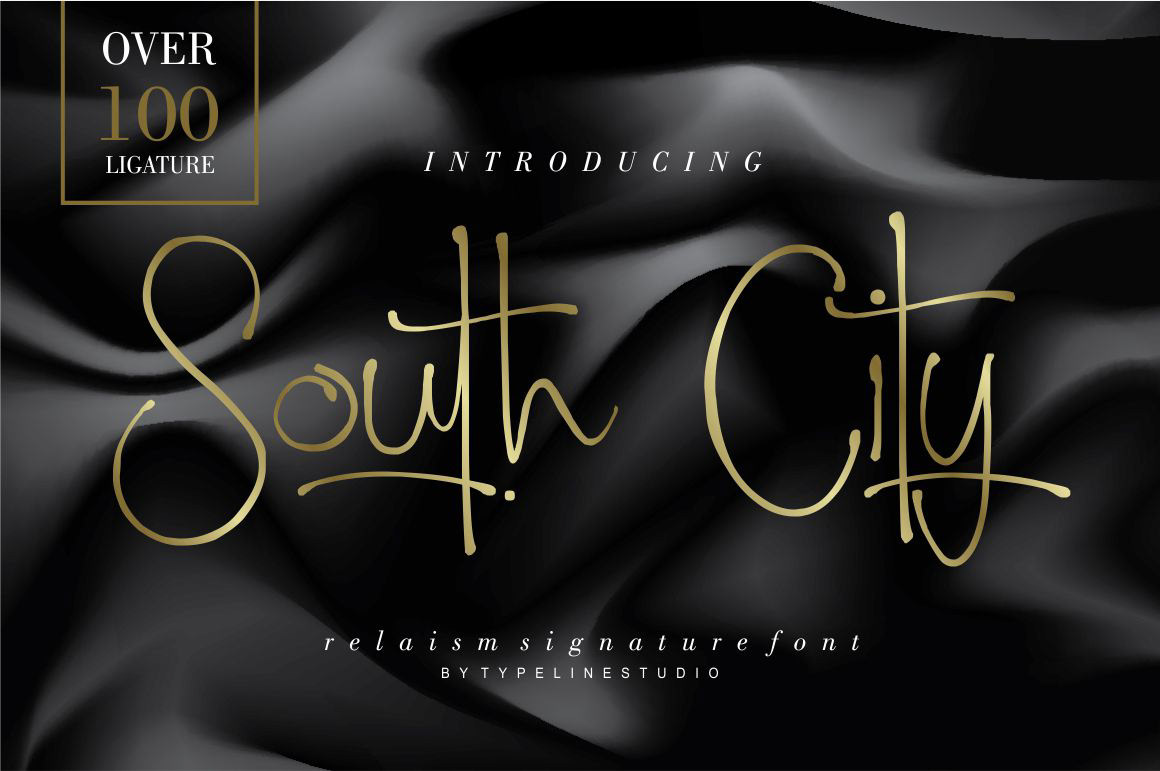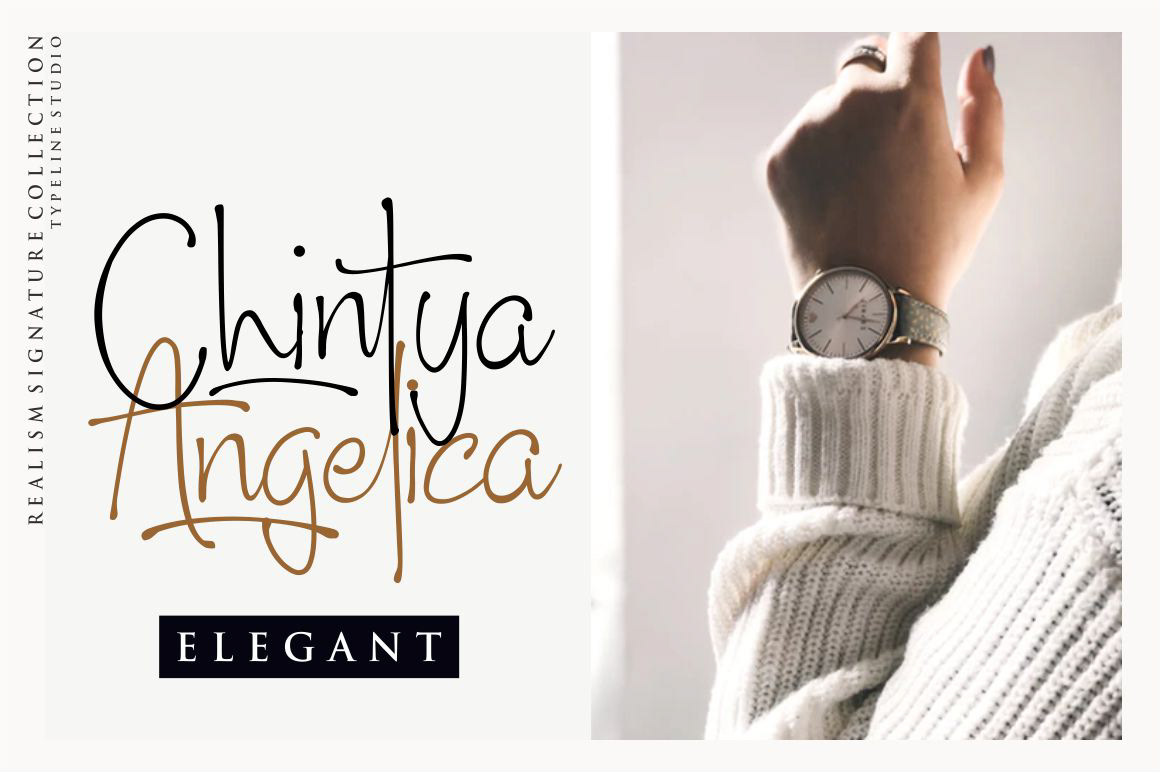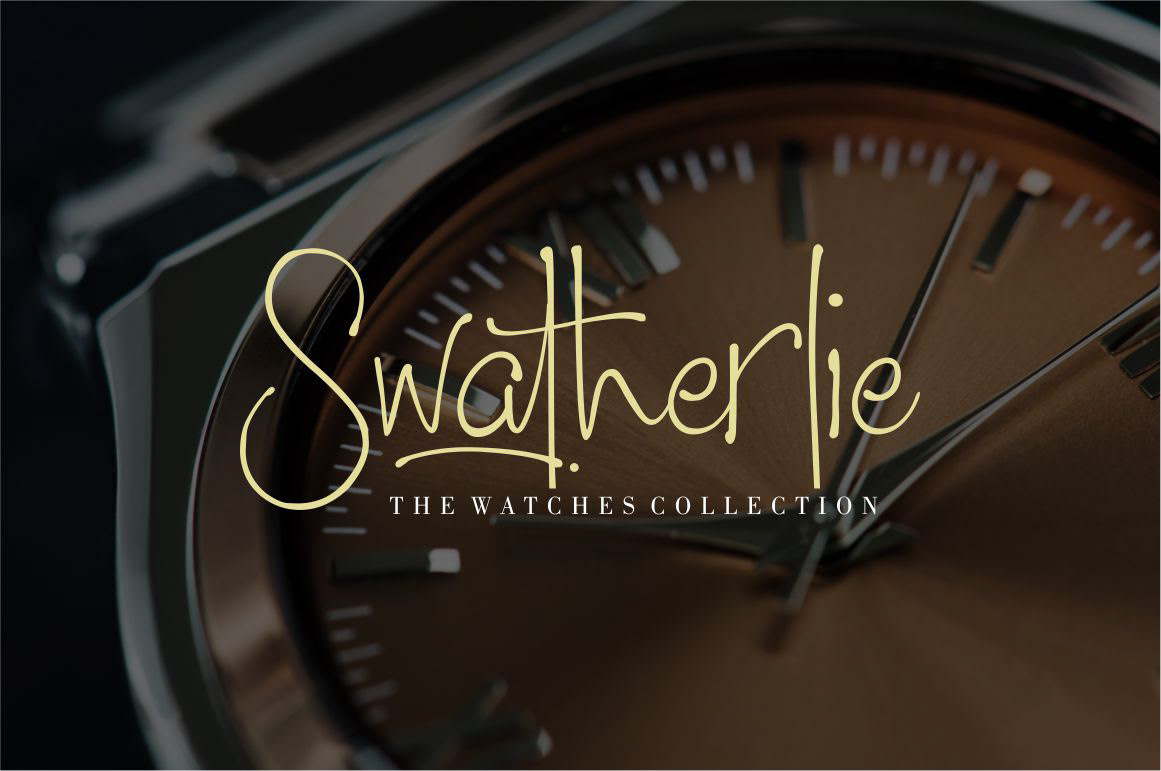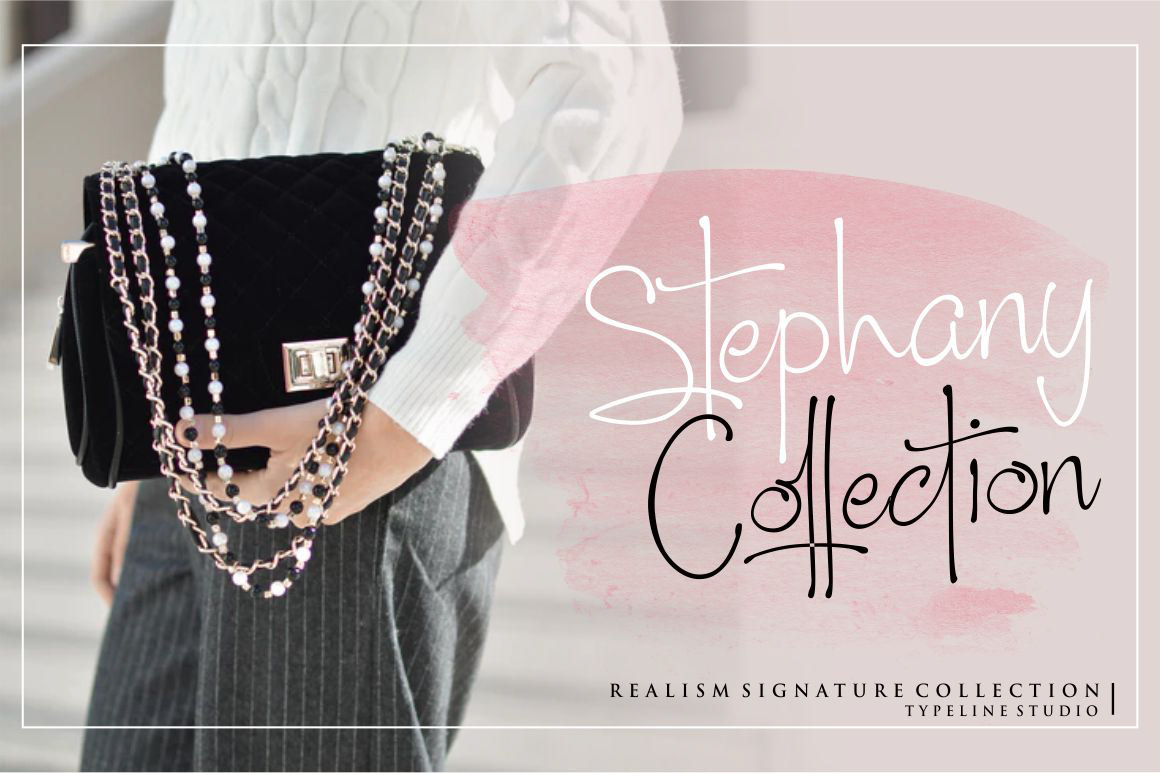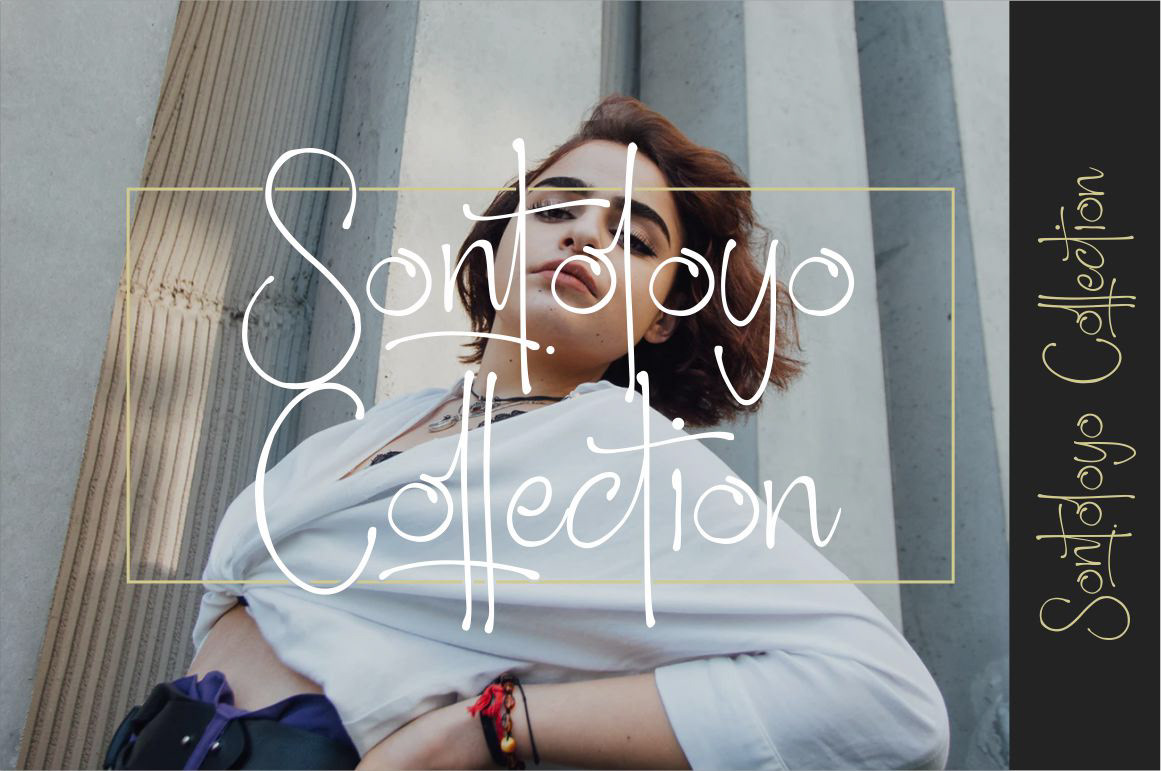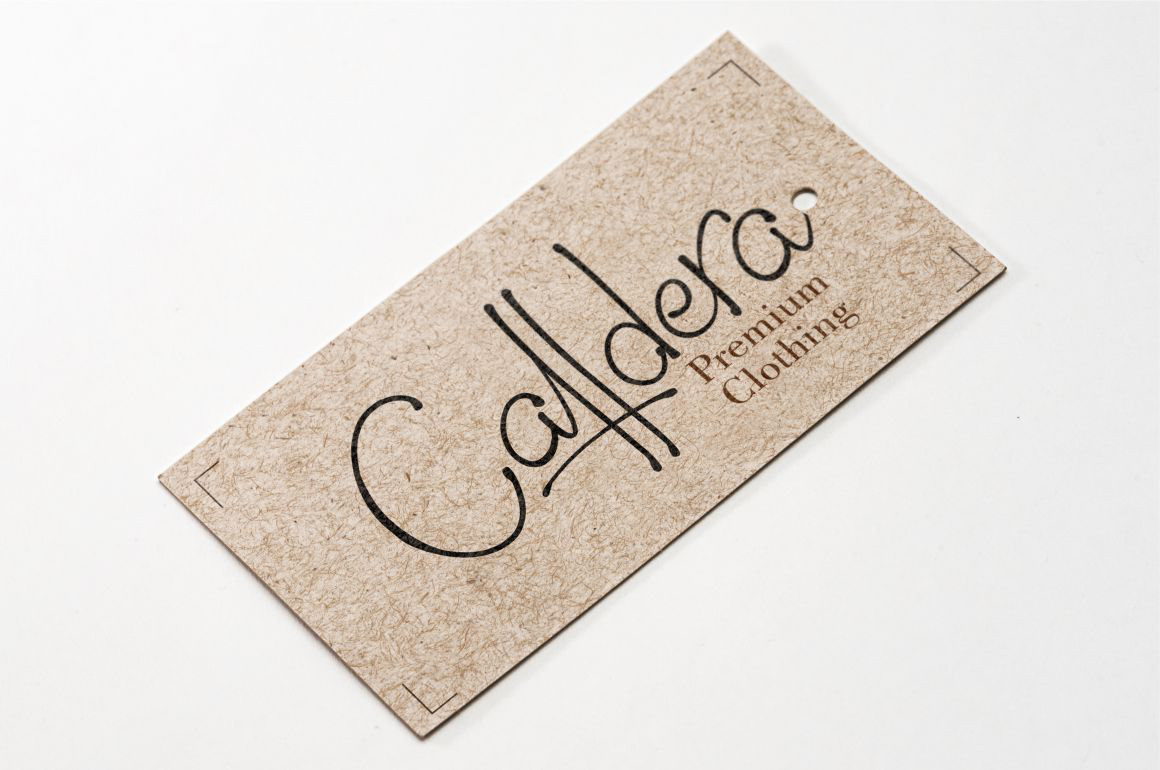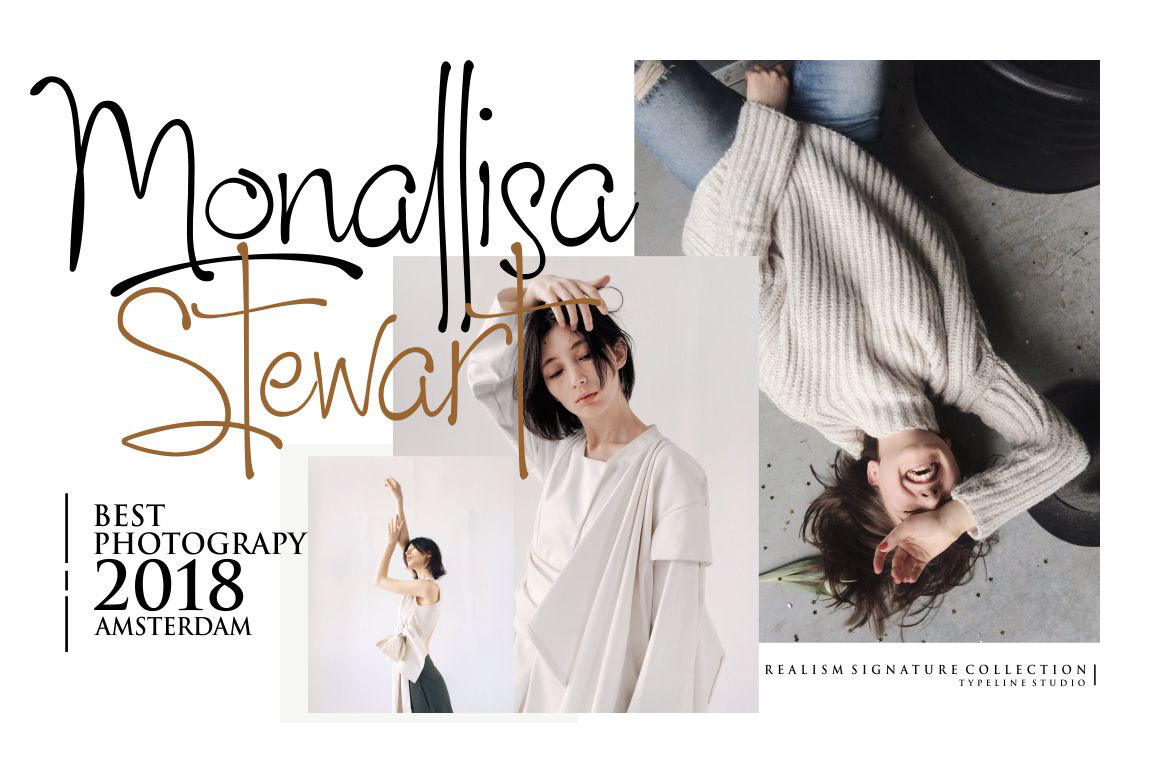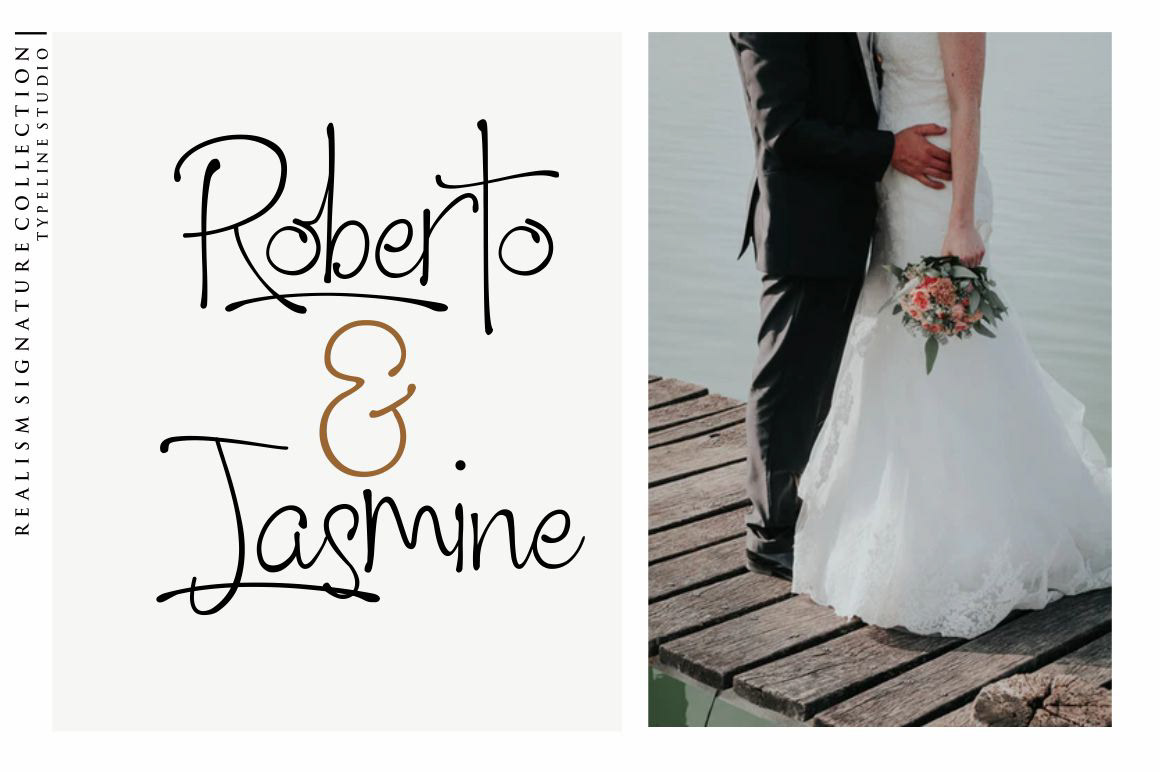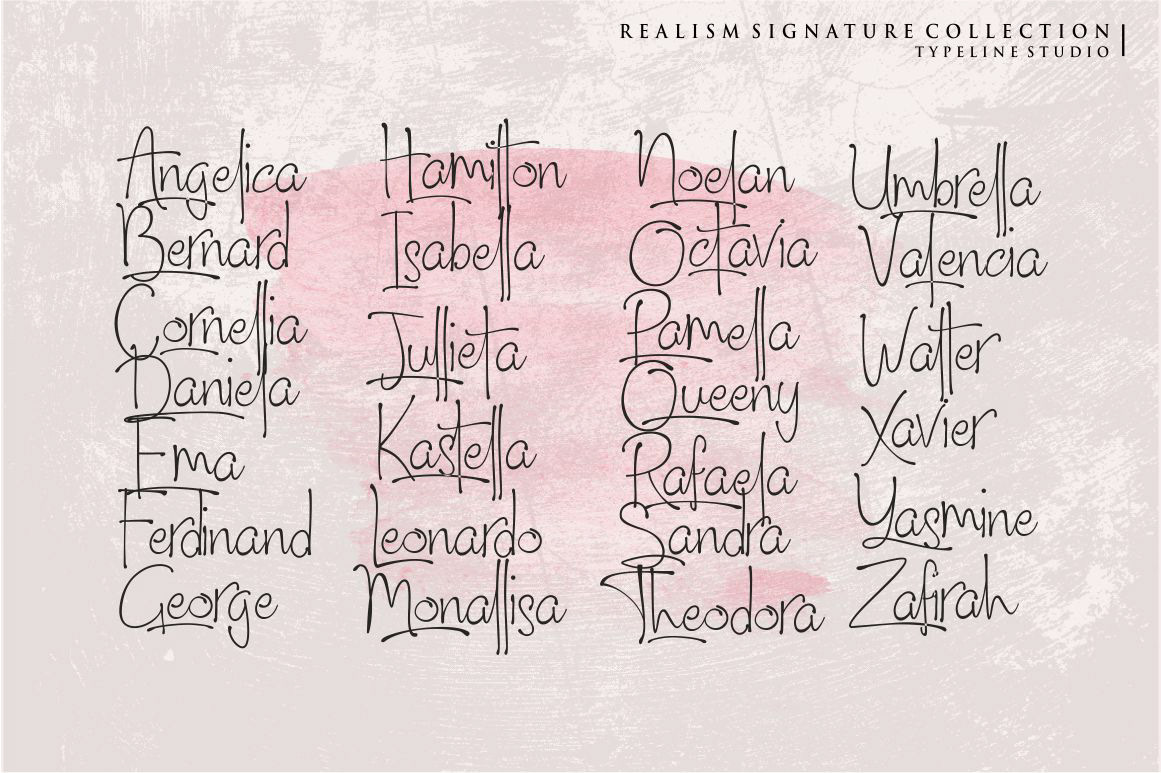
If you’re in the market for a font with some real personality, then be sure to check out South City Font by Typeline Studio. Give a refreshing look to your latest projects with this elegant font that sports a number of OpenType features giving you some real flexibility. Free for personal use! For commercial use please check here.